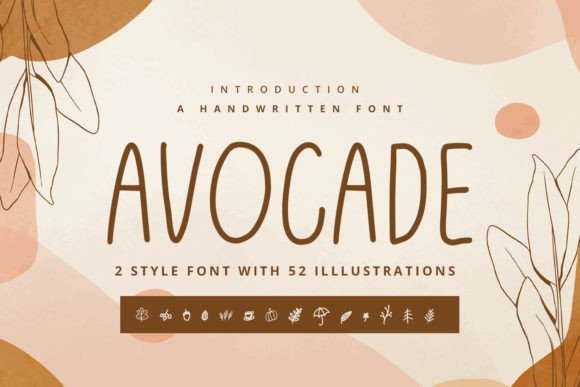
Introduction to Avocade Font
Avocade is a handwritten font with a modern feel.
It will be perfectly used for Branding, Logo Design, Lettering, Logotype, Clothing, Poster, magazine, packaging, posters, shopping bags, t-shirts, book covers, photography, special events, and another design project .
Key Features of Avocade Font
Why Choose Avocade Font?
Avocade Font offers exceptional quality and versatility, making it a valuable addition to your design toolkit. Whether you’re creating for personal projects or commercial use, Avocade Font delivers professional results.